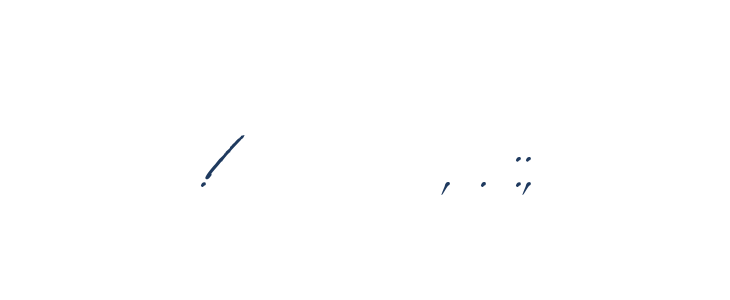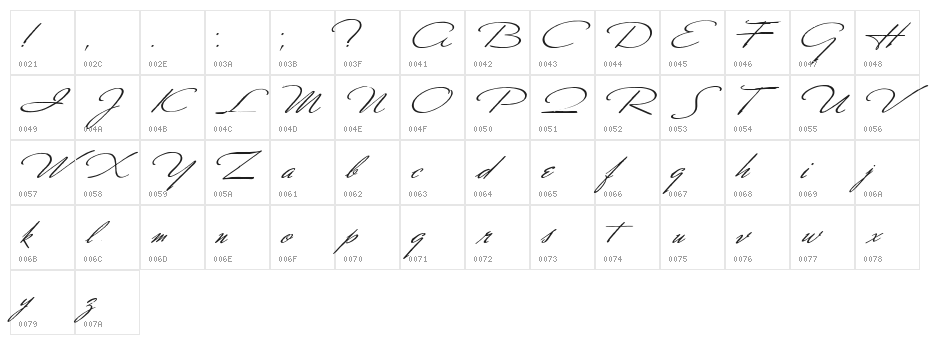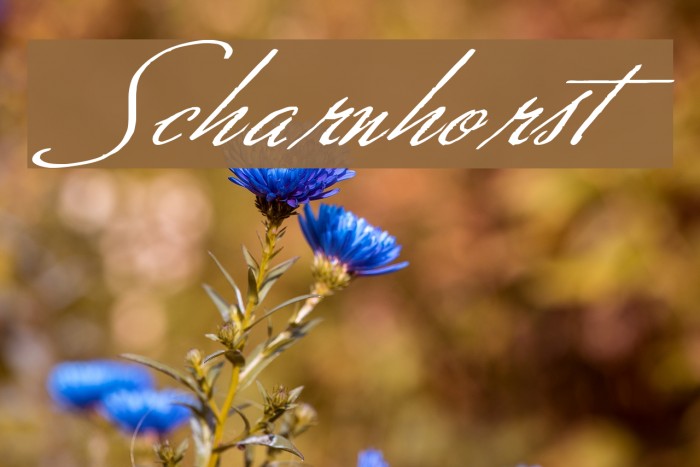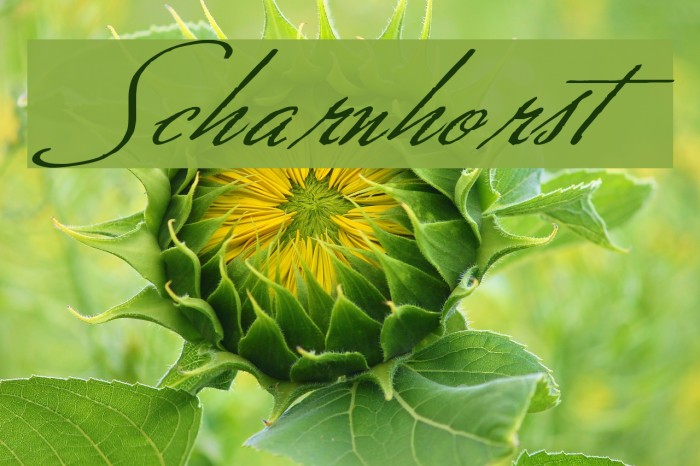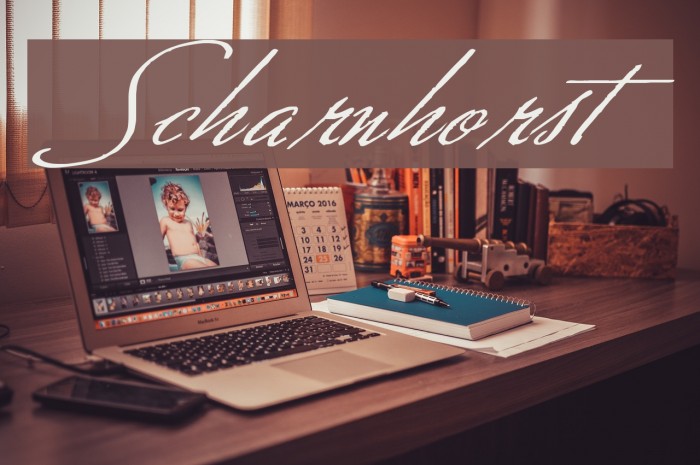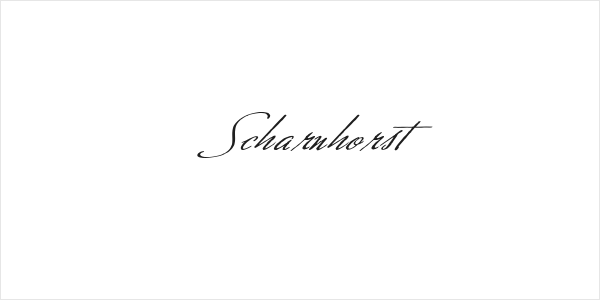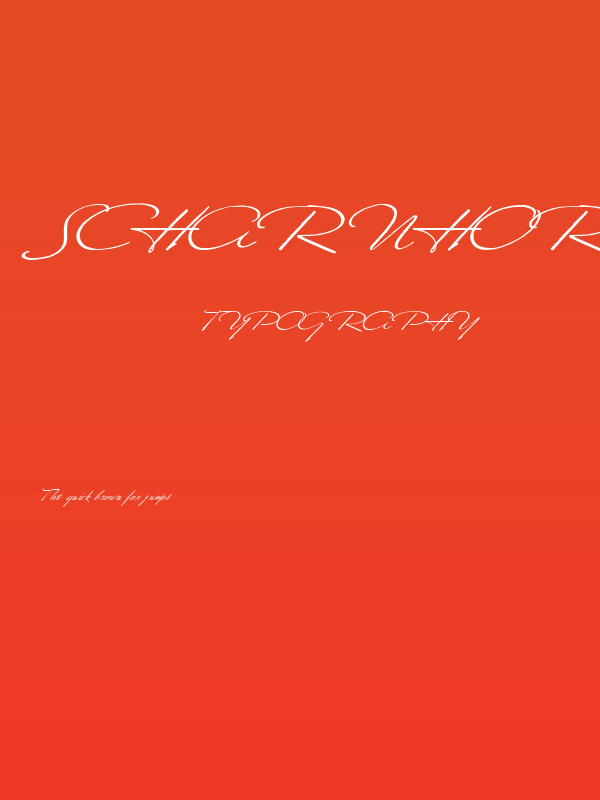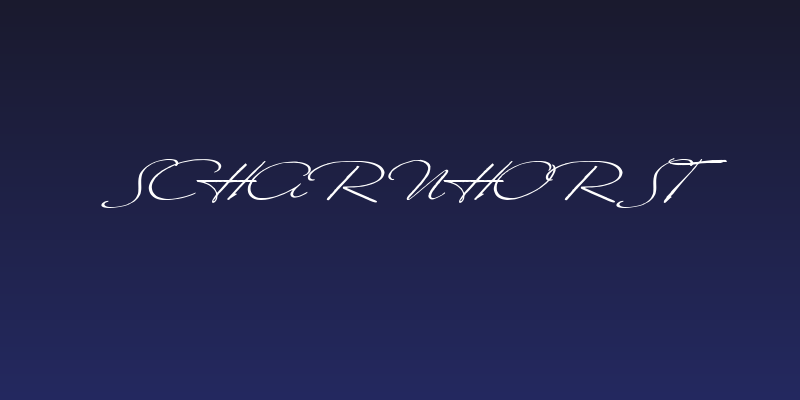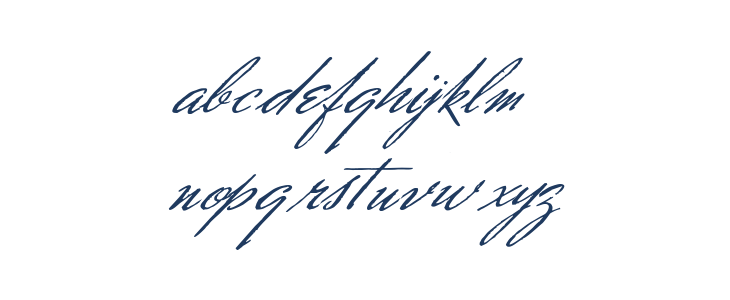
Scharnhorst Font
Scharnhorst Description
This font exudes a classic and elegant script style, characterized by its flowing, cursive letterforms that mimic the fluidity of handwriting. The uppercase letters are gracefully elongated with subtle flourishes, while the lowercase letters maintain a consistent slant, enhancing the overall sophistication. The strokes vary in thickness, providing a medium contrast that adds to the font's dynamic appearance. The special characters are seamlessly integrated, maintaining the script's aesthetic. This font is ideal for projects that require a touch of elegance and tradition.
Overall StyleClassic
Use CaseLogos, Invitations, Personal Stationery
Proposed ProjectsIdeal for wedding invitations, formal event programs, elegant branding, and personal stationery.